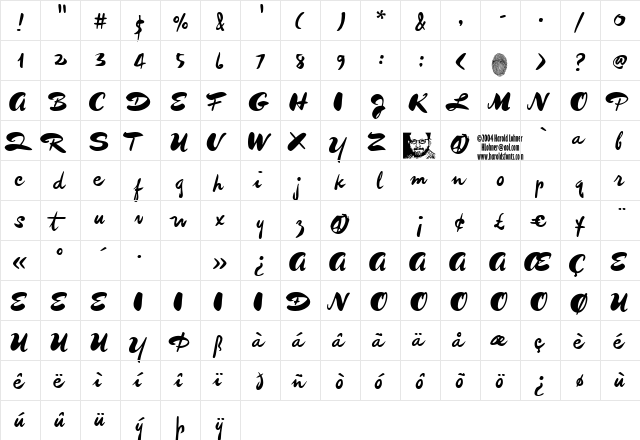
imitationTWO Regular
Design Context for imitationTWO Typeface
imitationTWO is a composed and adaptable typeface that performs quietly and consistently across a wide range of design contexts.